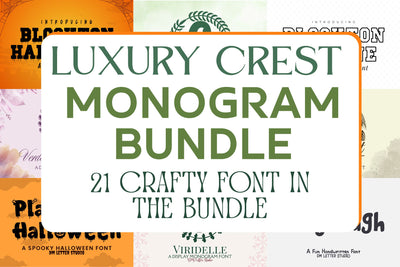
Luxury Crest Monogram Bundle + Blockton & Playdough Extras
Meet the Luxury Crest Monogram Bundle + Blockton & Playdough Extras
The Luxury Crest Monogram Bundle brings together refined crest-style monograms designed for premium branding, weddings, and elegant personalization. Each monogram features balanced structure and classic detailing, giving initials a timeless, high-end presence. To add flexibility and creative contrast, this bundle also includes Blockton and Playdough as bonus fonts. Together, they cover both formal and playful needs, so one bundle supports many design styles. As a result, you can create cohesive collections without switching tools.
What’s inside the bundle
Luxury Crest Monogram Fonts
Elegant crest-style initials built for weddings, branding, certificates, and premium packaging. The proportions stay consistent, so layouts feel polished and professional at any size.
Blockton (Bonus Font)
A bold, block-style font that adds strength and clarity. Perfect for labels, headings, logos, and merchandise where impact matters.
Playdough (Bonus Font)
A playful, rounded font with a friendly feel. Ideal for kids products, stickers, packaging, crafts, and casual branding.
Fast layouts with the Luxury Crest Monogram Bundle
Start with a crest monogram as the hero element. After that, add names, dates, or taglines using Blockton for bold contrast or Playdough for a softer tone. Because the fonts are well-balanced, labels, cards, and packaging come together quickly. In addition, you can reuse the same layouts across different products by simply swapping fonts. Finally, save color sets like ivory and gold, charcoal and cream, blush and sage, or black and kraft to keep collections consistent.
Creative uses and quick wins
- Wedding monograms, invitations, and ceremony signage
- Luxury logo seals, certificates, and brand marks
- Gift tags, stickers, and keepsake packaging
- Labels for candles, soap, perfume, kids products, and merch
Design tips for best results